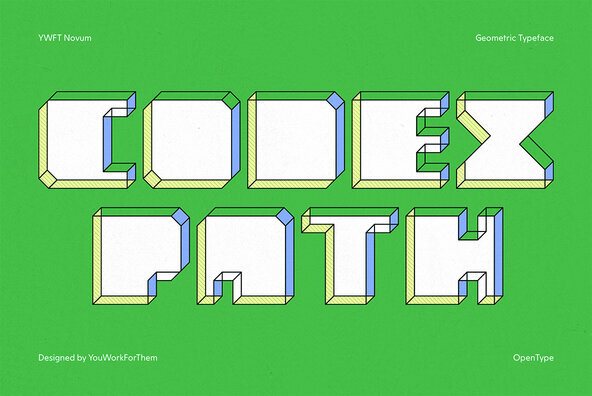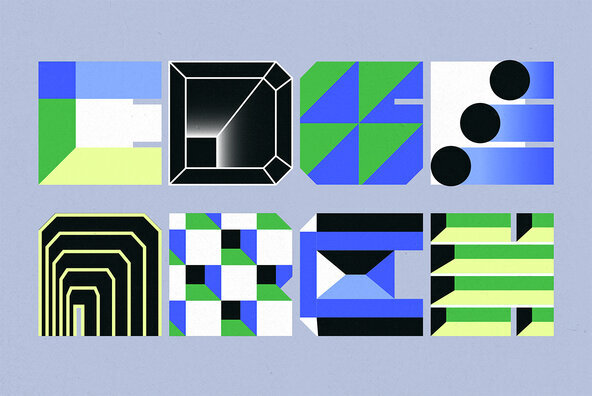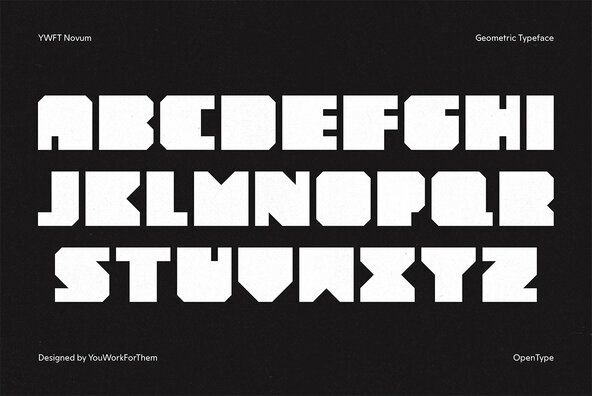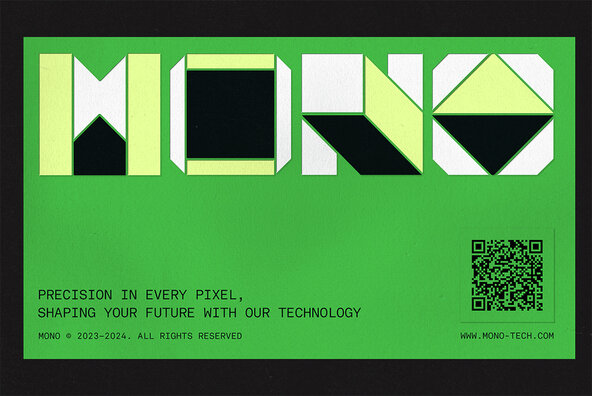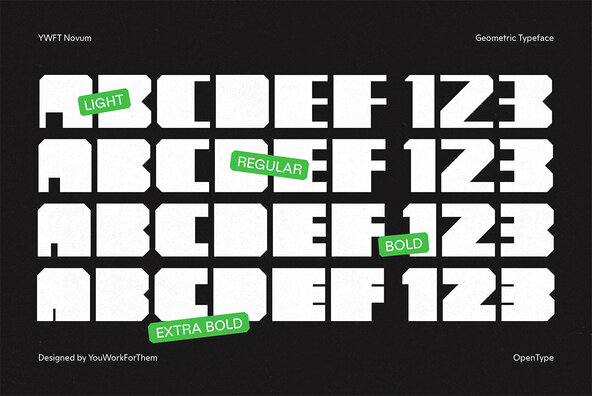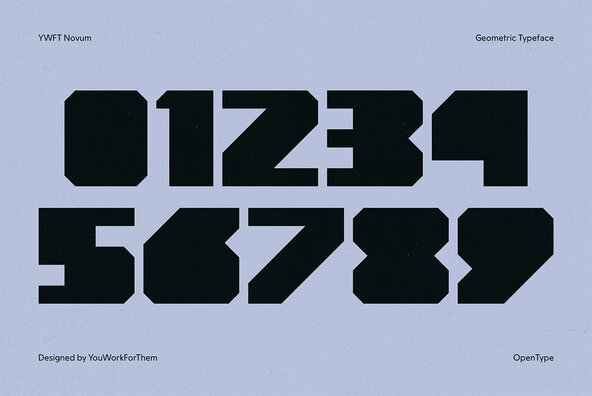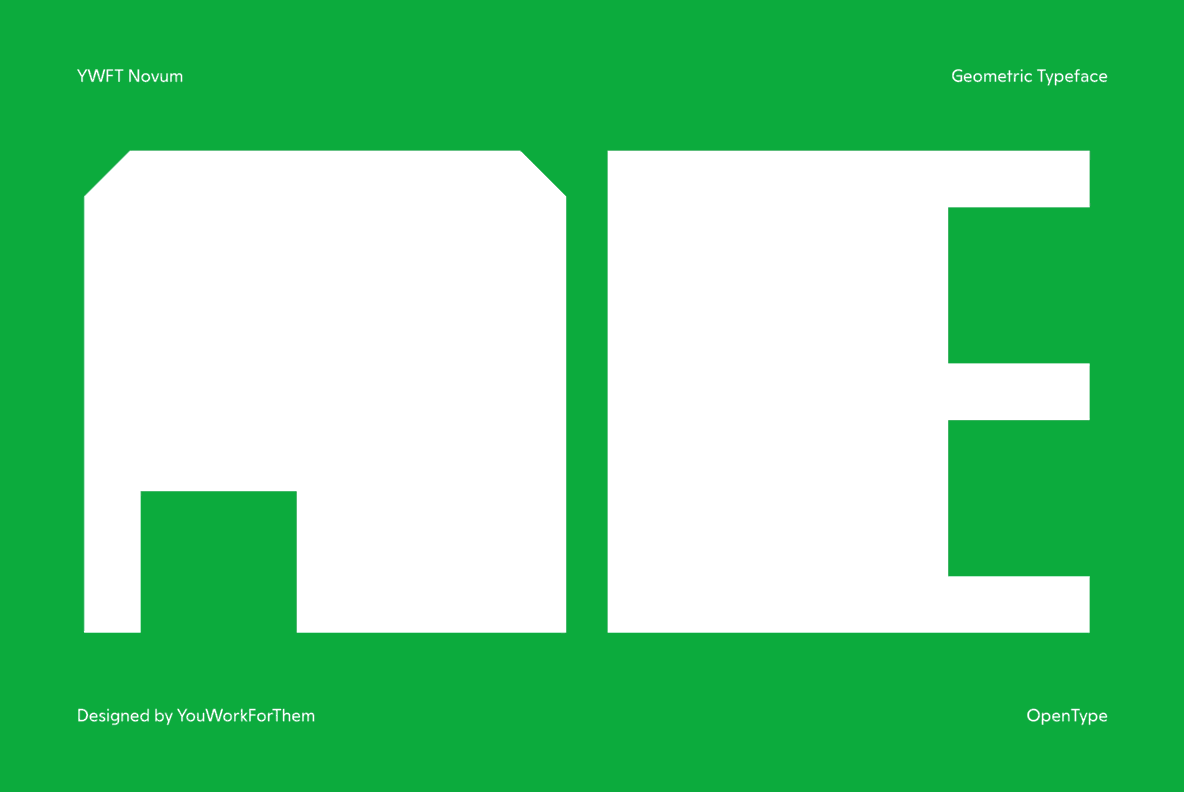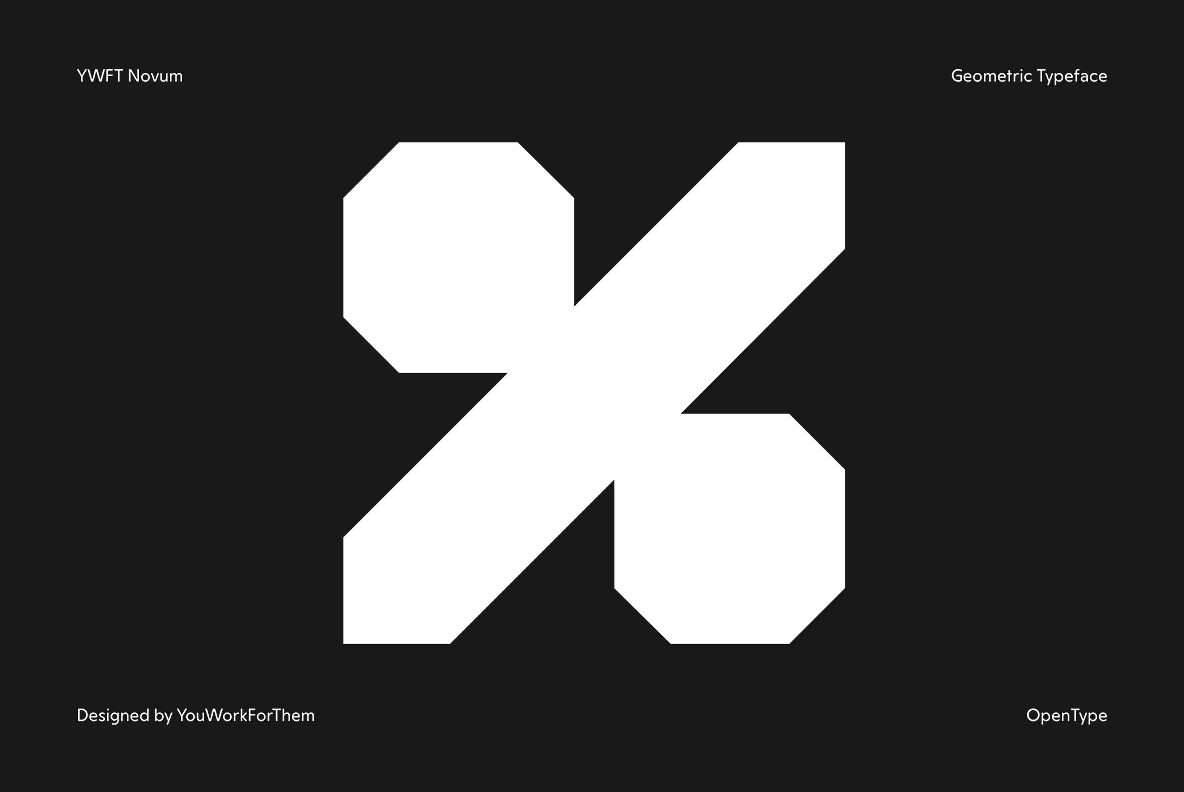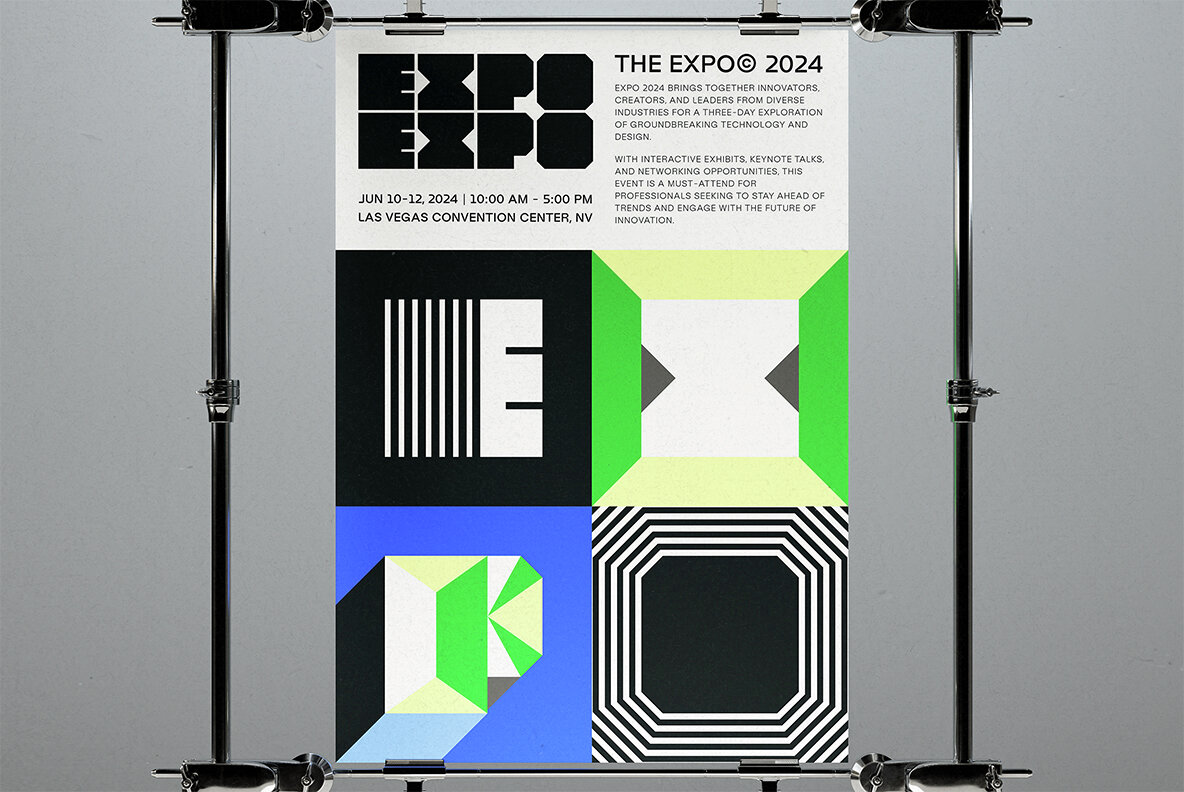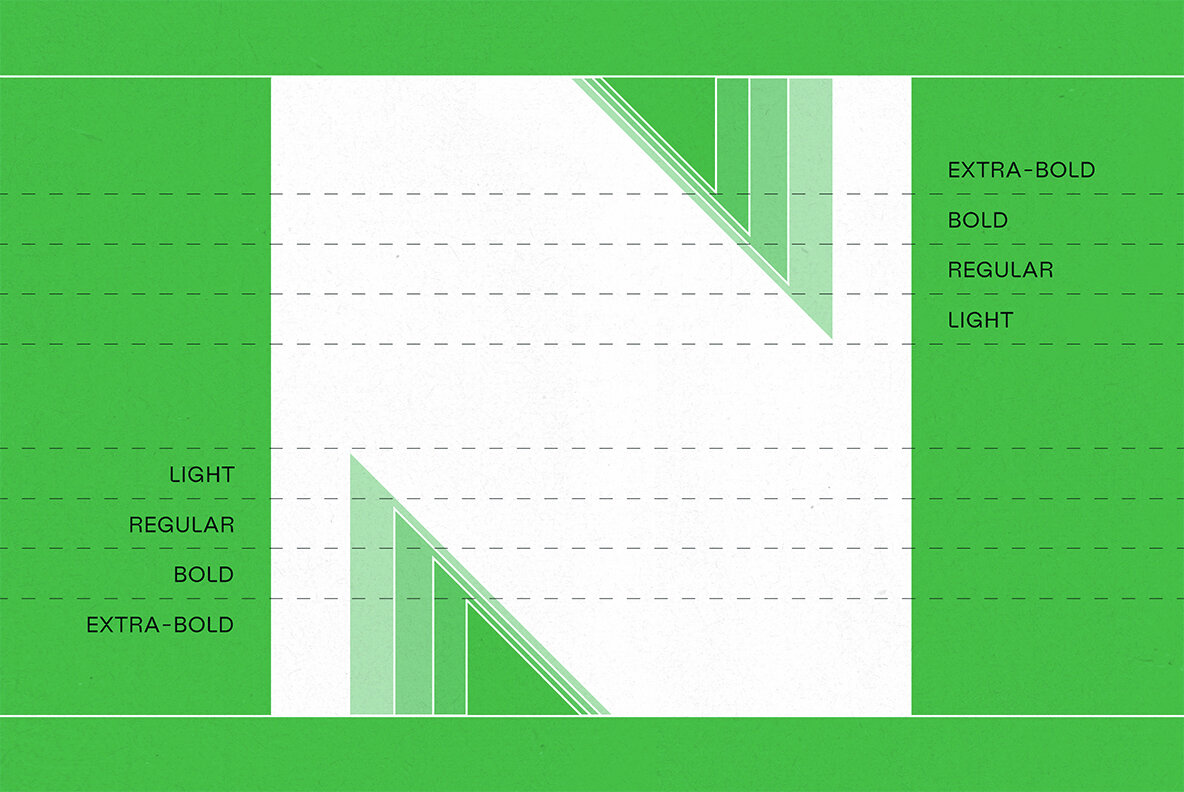
YWFT Novum
Foundry: YouWorkForThem
"Novum" means "new thing," so it's a bit of a contradiction that YWFT Novum is a retro-styled font. This technical, heavy block font draws inspiration from a typeface originally used by the Swiss graphic designer Siegfried Odermatt. This thing is massive and powerful, and works great in headlines, posters and branding work, but can also be used in more abstract situations, like pattern creation. YWFT Novum was converted to opentype format in 2010. Designed exclusively by Michael Cina and YouWorkForThem.